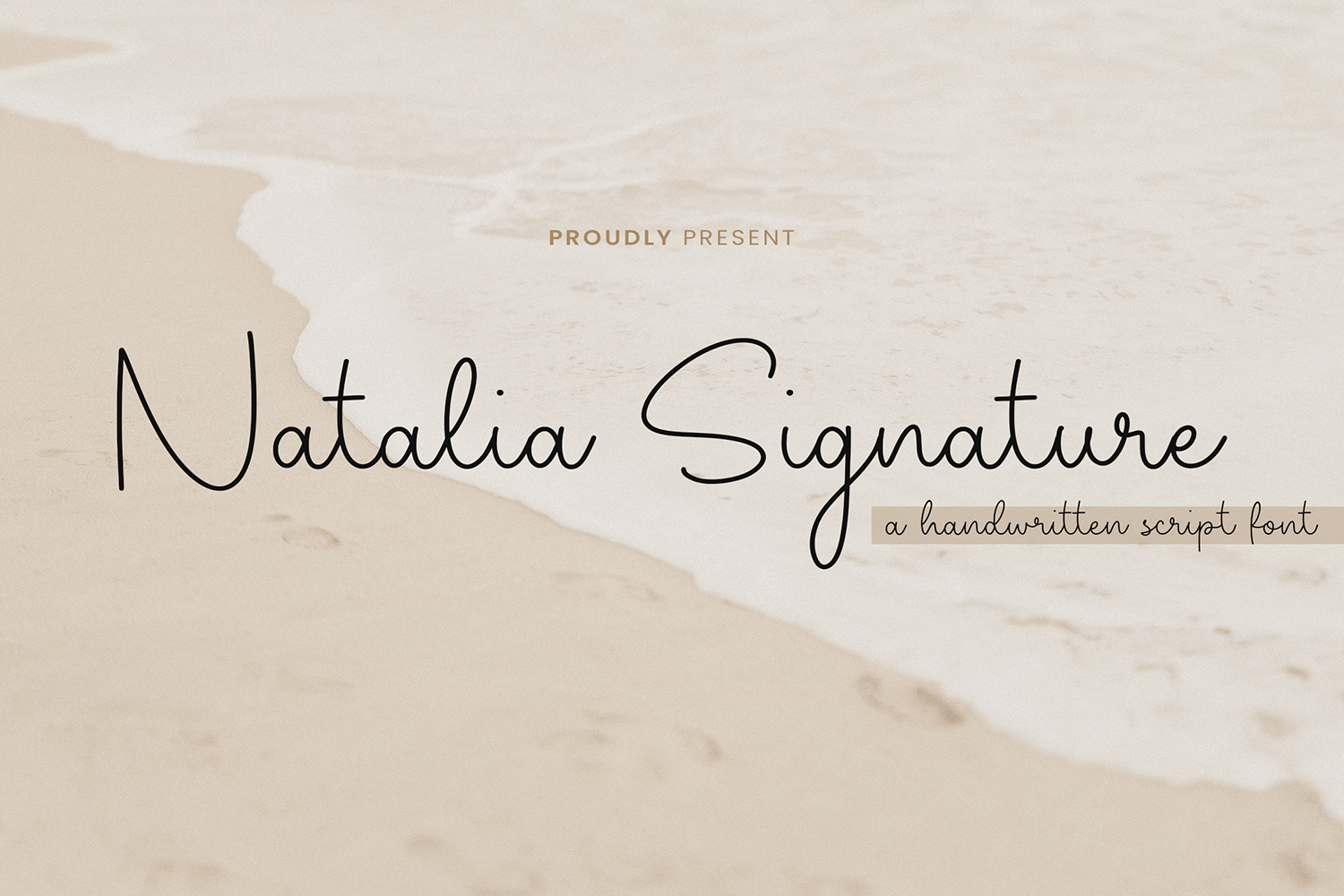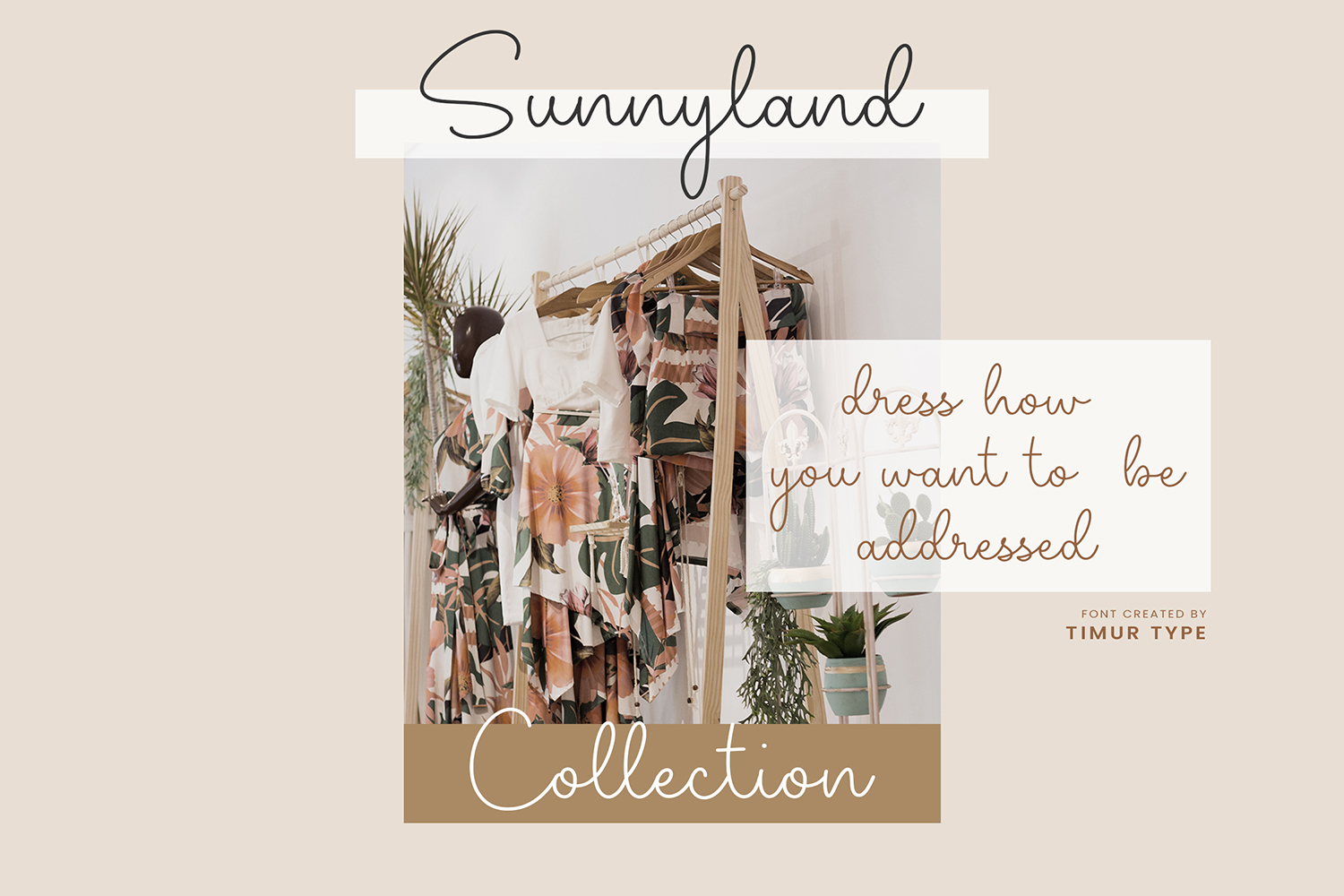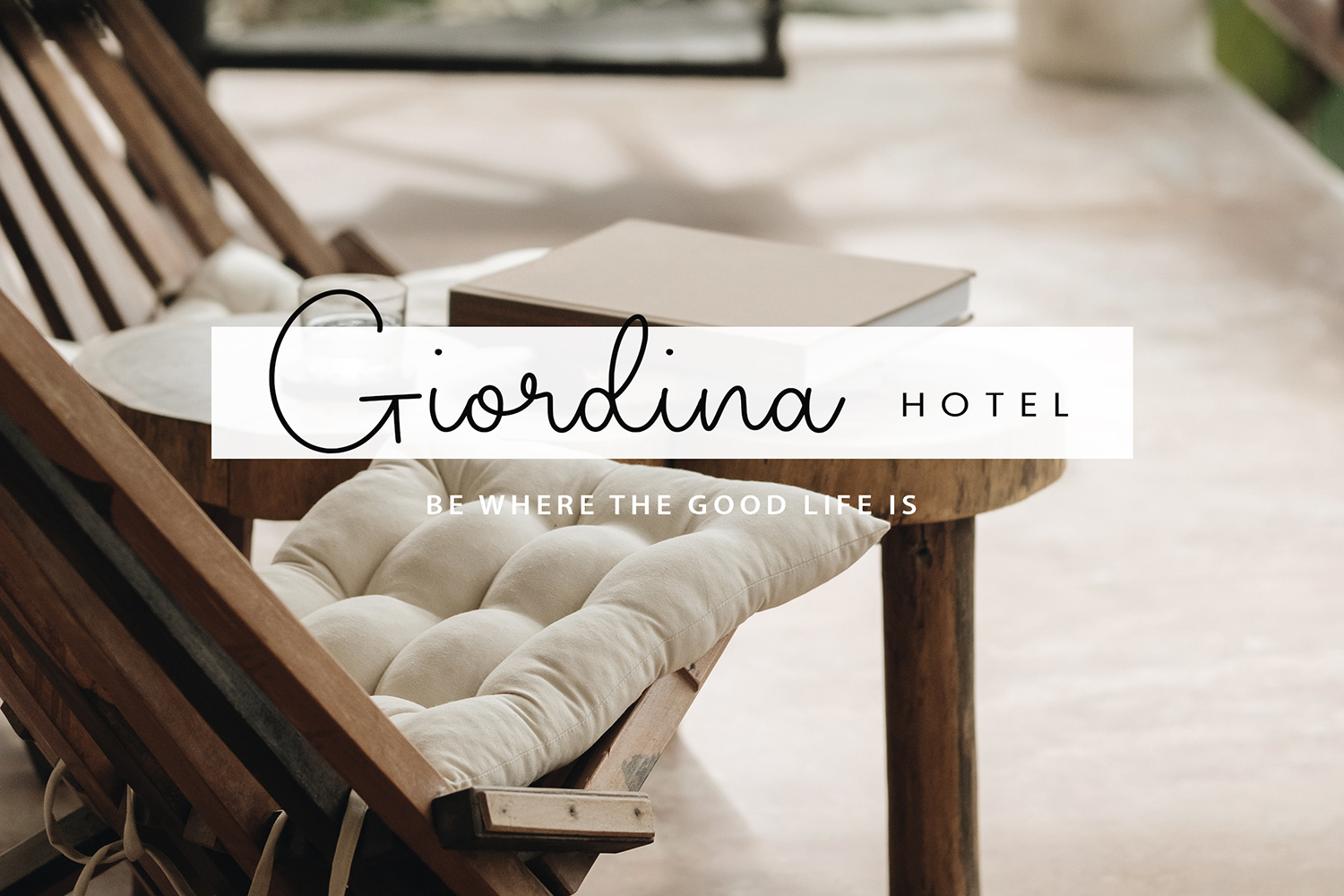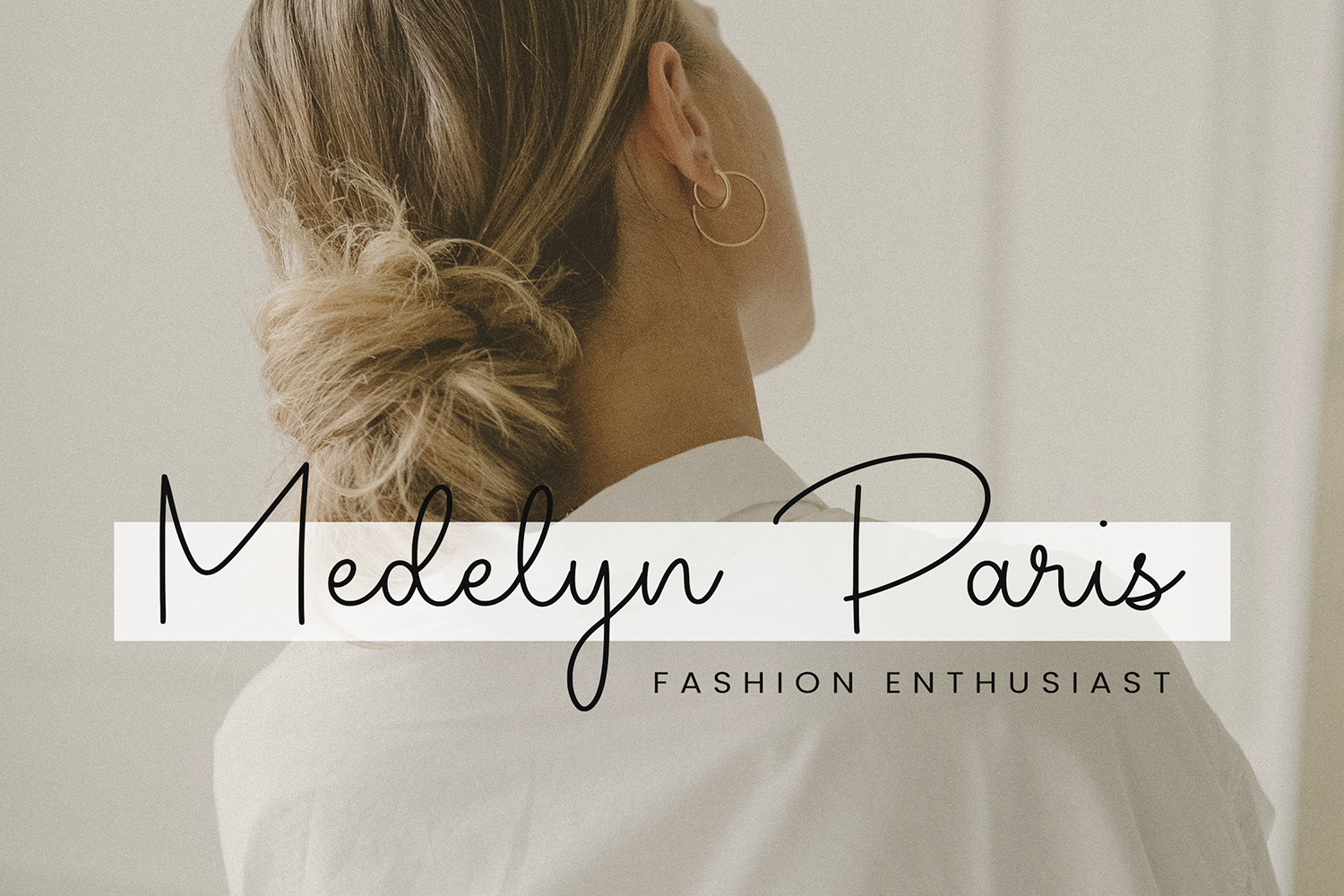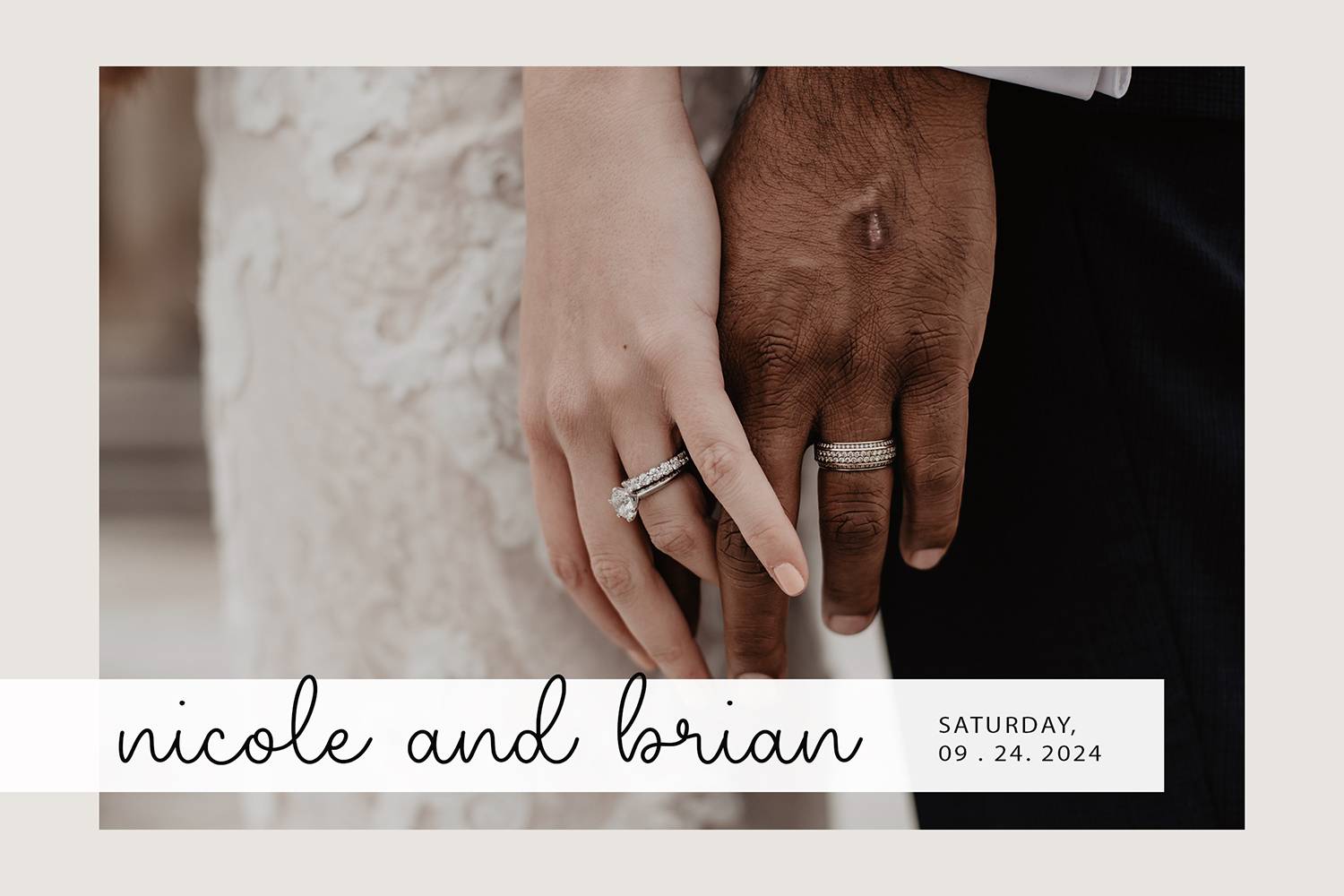
Natalia Signature Font
Natalia Signature Font is a stylish and exclusive font that radiates luxury and refinement. With its elegant curves, fluid lines, and intricate flourishes, this font is perfect for creating a high-end and upscale feel for your designs. Elevate your branding, invitations, and other projects with the exclusive and sophisticated vibe of this font. This free typeface was designed by a talented Timur type. If you like it don’t forget to check out the full version.